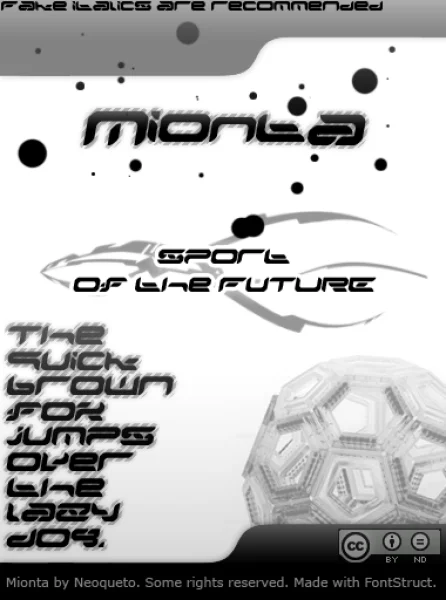
As I know, the design related with sports changed a lot from the old-school look. Nowdays, sport magazines, TV channels, commercials for example, have very smooth and modern style. I wanted to create a FontStruction, that fully describes this style. Enjoy.